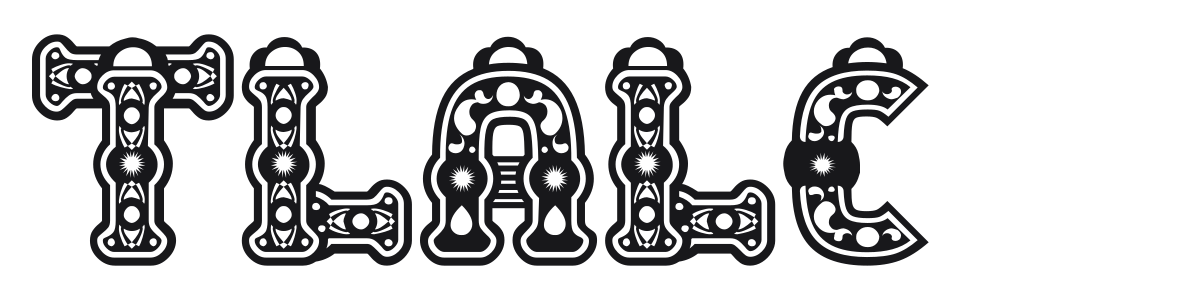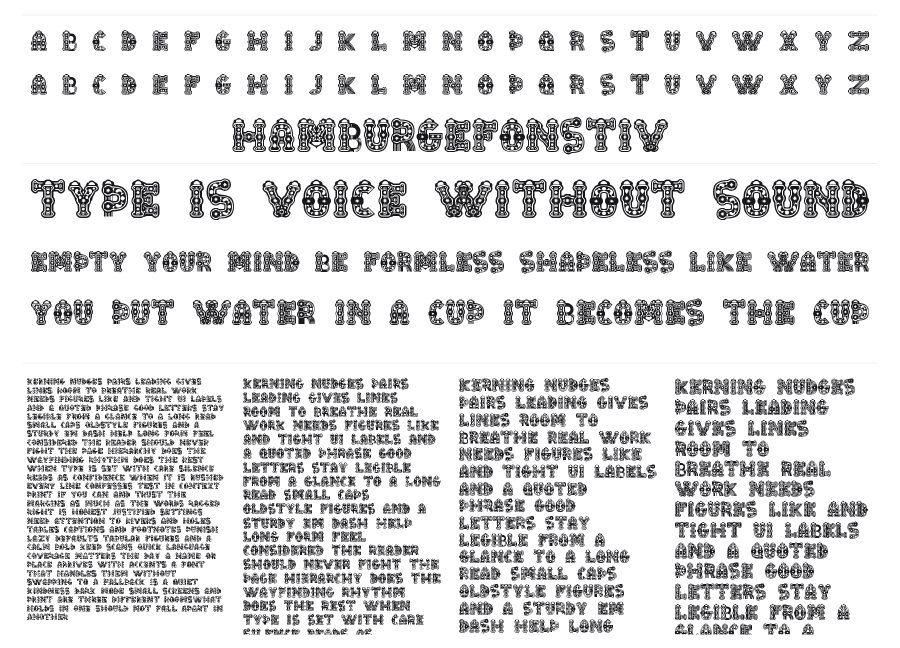
Tlalòc
Tlalòc is a densely ornamented display font where every character is packed with intricate geometric and mechanical interior patterns. The bold outlined forms recall Victorian circus types, but the fill details evoke pre-Columbian stonework or circuit-board engravings. Best used large, where all that interior complexity can breathe.